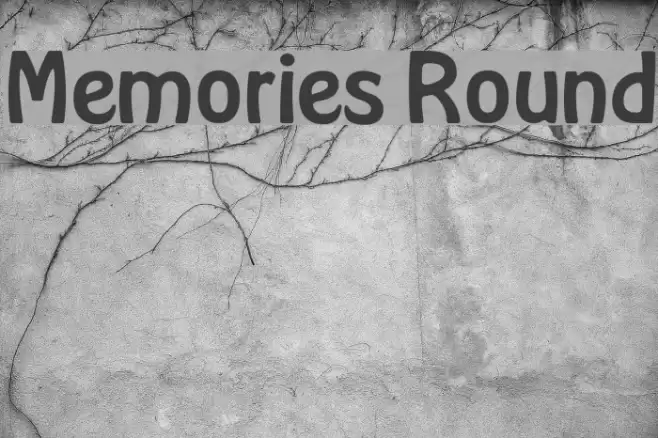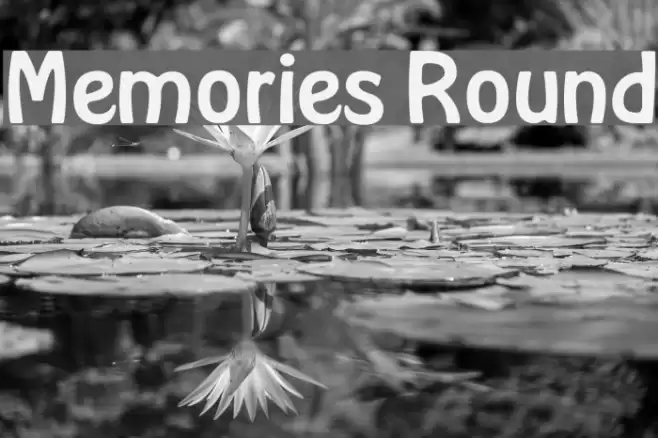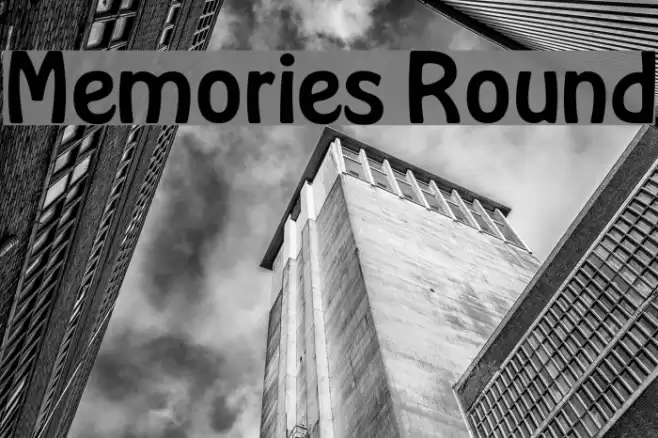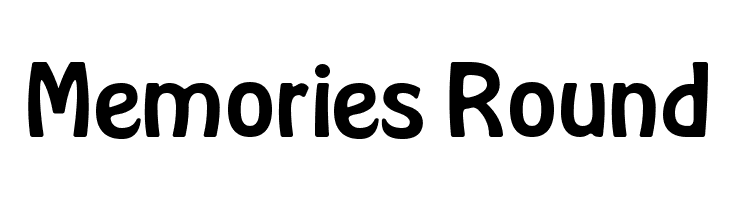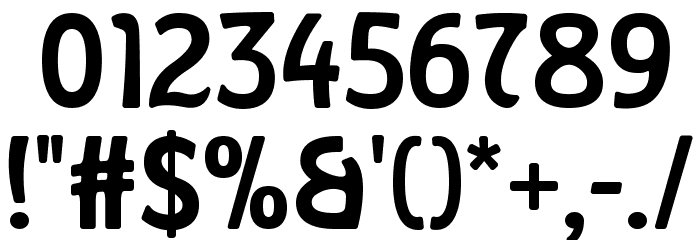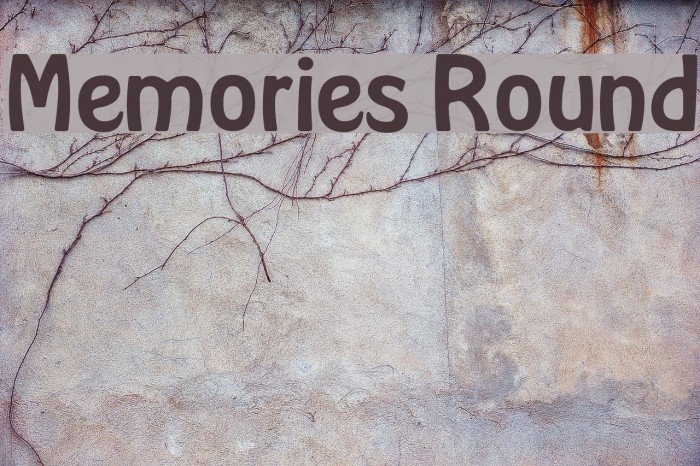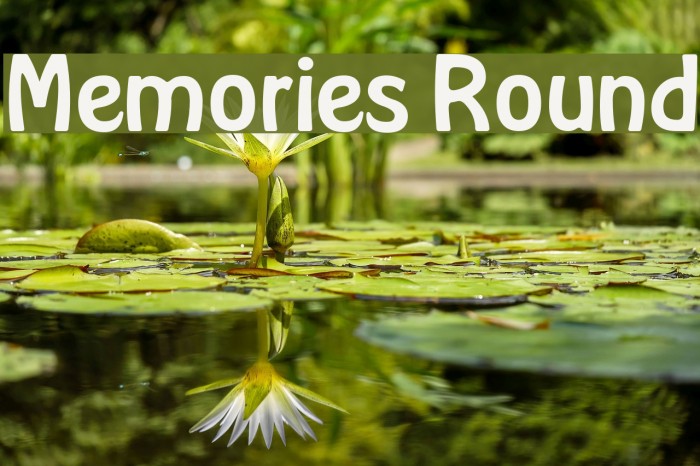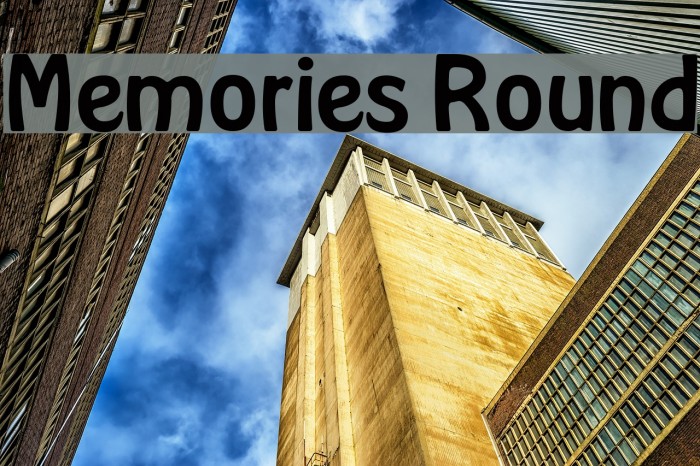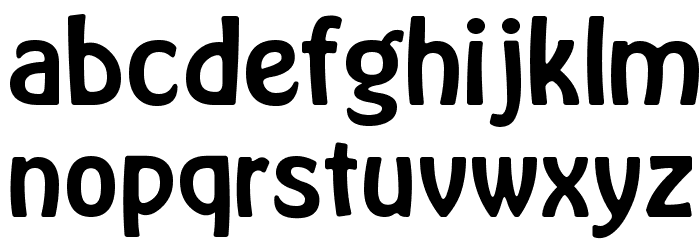
Memories Round Font
Memories Round Description
This playful and rounded font exudes a friendly and approachable vibe, characterized by its smooth curves and slightly irregular shapes. The letters are bold and have a consistent stroke width, making them highly legible and suitable for various design applications. The font's whimsical nature is enhanced by its rounded terminals and soft edges, giving it a warm and inviting appearance. It maintains a balanced and harmonious look, making it ideal for projects that require a touch of fun and creativity. The numbers and special characters follow the same rounded and playful style, ensuring consistency across all text elements.
A playful, rounded font with smooth curves and a friendly vibe from Uncategorized fonts.
- Proposed Projects: Ideal for children's books, playful branding, greeting cards, and casual invitations.
- Overall Style: Playful